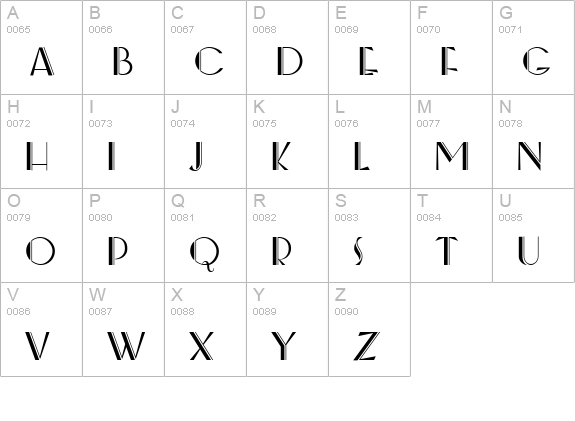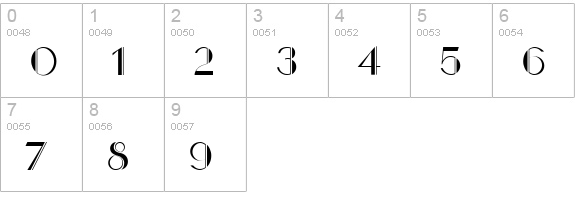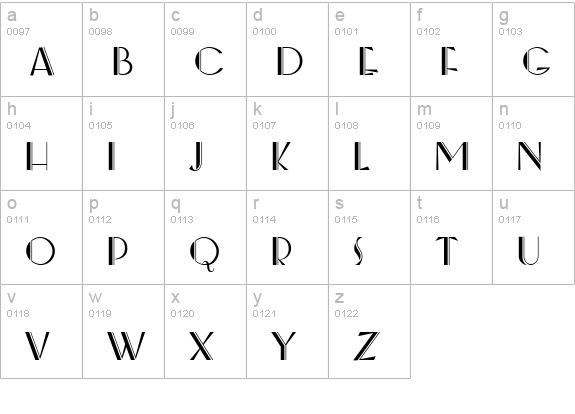
CgBeverlyHills Font Details
CgBeverlyHills font exudes elegance and sophistication with its luxurious curves and stylish design. This versatile typeface is perfect for adding a touch of glamour to your projects, whether it's for branding, invitations, or editorial design. The classic yet contemporary feel of CgBeverlyHills font makes it a timeless choice for any creative endeavor. What's even better is that CgBeverlyHills font is available for free download at FontsMarket.com. Now you can elevate your designs with this exquisite font without breaking the bank. Don't miss out on this opportunity to enhance your projects with the allure of CgBeverlyHills font - download it today and let your creativity shine!